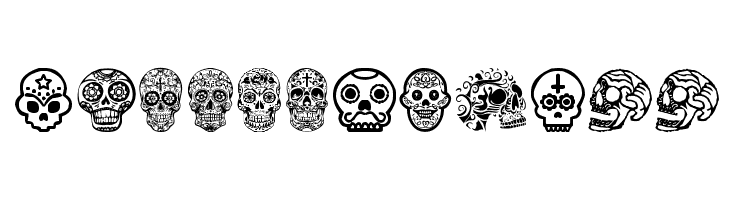
A decorative font with parallel line detailing, offering a modern and sophisticated look.
A geometric, multi-line font with a modern and bold aesthetic.
A bold, three-dimensional font with a retro, geometric style.
A bold, three-dimensional font with a layered, geometric design.
( Fonts by Trappist Monk )
A bold, angular Gothic-inspired font with intricate detailing.
( Qkila - Quentin Aquila - www.creativefabrica.com/designer/qkila/ )
A bold, decorative font with geometric influences and a festive flair.
( Qkila - Quentin Aquila - www.creativefabrica.com/designer/qkila/ )
A bold, decorative font with a three-dimensional effect and festive style.
( Fonts by Klaus Johansen - www.listemageren.dK )
A collection of bold, intricate Mexican-inspired ornamental designs.
( Fonts by Aspek hndz )
A bold, angular font with an urban, graffiti-inspired style.
Ornate skull-themed decorative display font inspired by Mexican folk art.